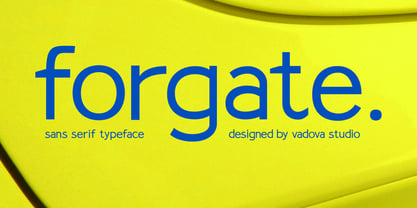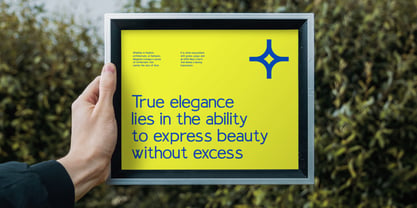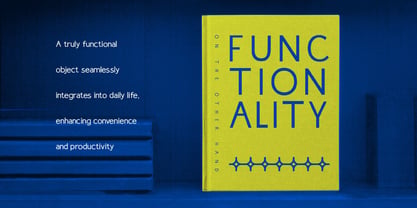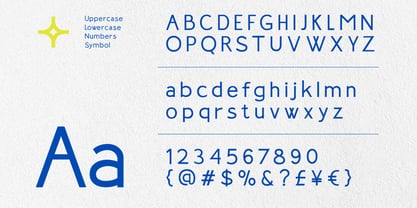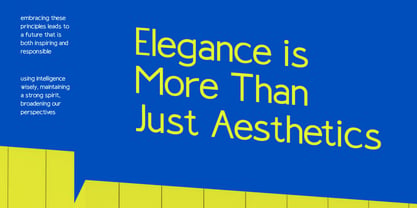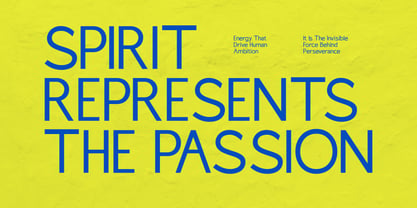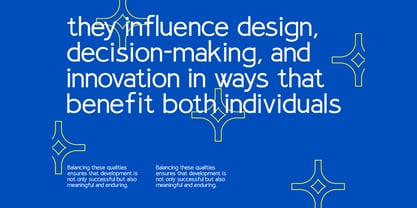
Forgate
by Vadova Std
The Forgate Font Family and published by Vadova Std. Forgate contains 1 styles. More about this family
Forgate is a sleek and sophisticated sans serif font designed for modern branding and elegant visual identities. With its clean lines, balanced proportions, and contemporary aesthetic, this typeface is perfect for corporate designs, editorial layouts, high-end fashion branding, and minimalist presentations. Suitable For Brand identity, corporate design, UI/UX interfaces, editorial layouts, wayfinding systems, tech startups, advertising, mobile apps, product packaging, business presentations, signage, environmental graphics, data visualization, e-learning platforms, digital publishing, public service campaigns, infographics, educational tools, app branding, marketing assets.